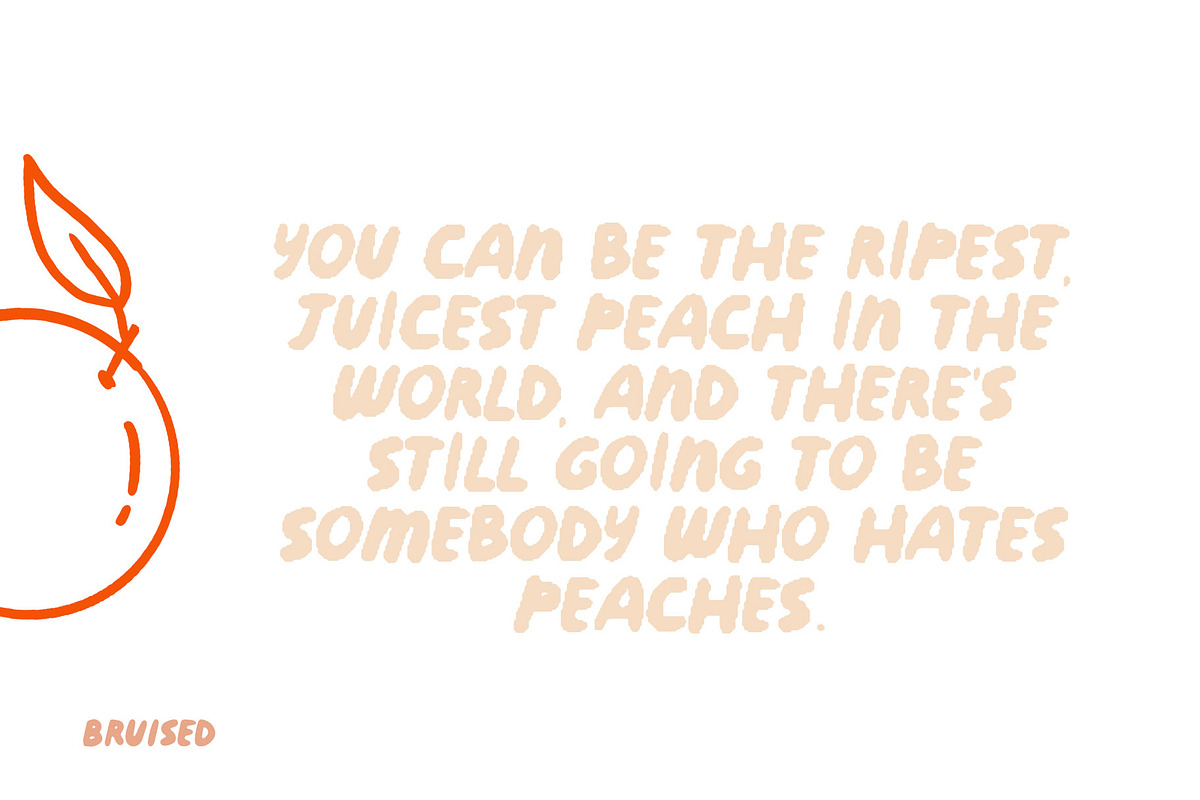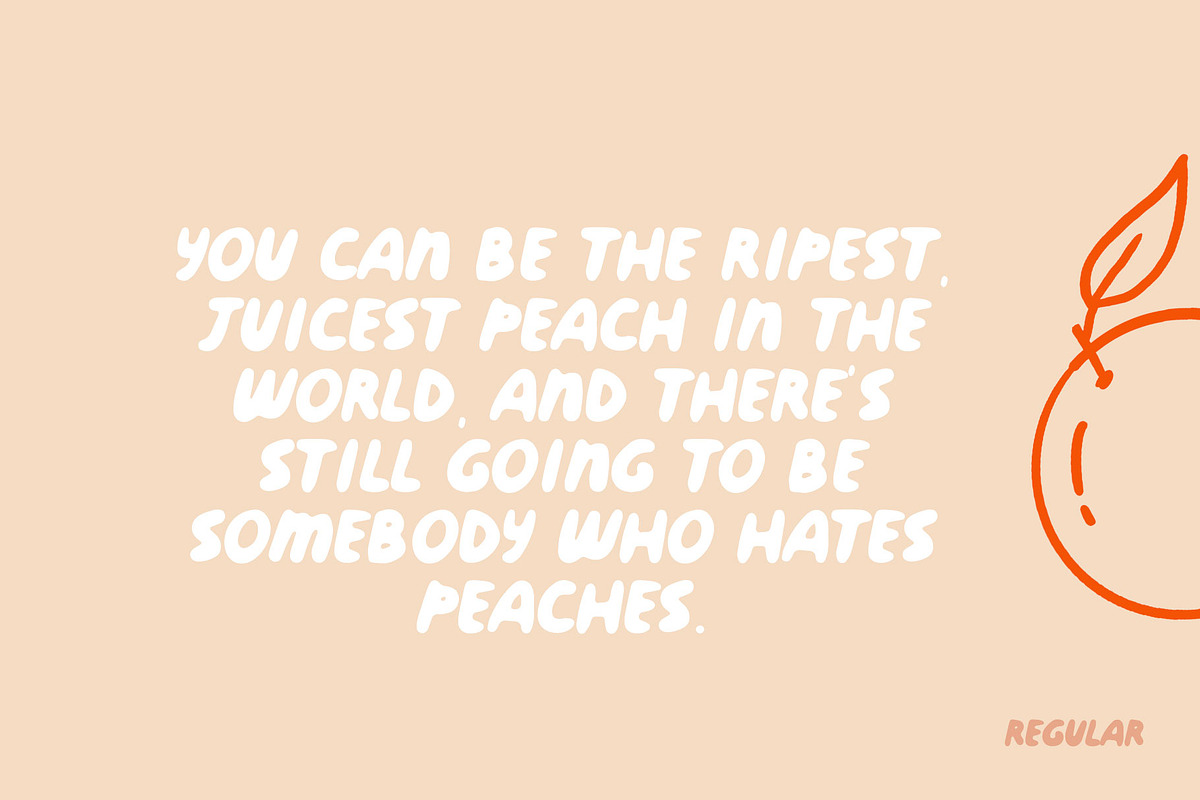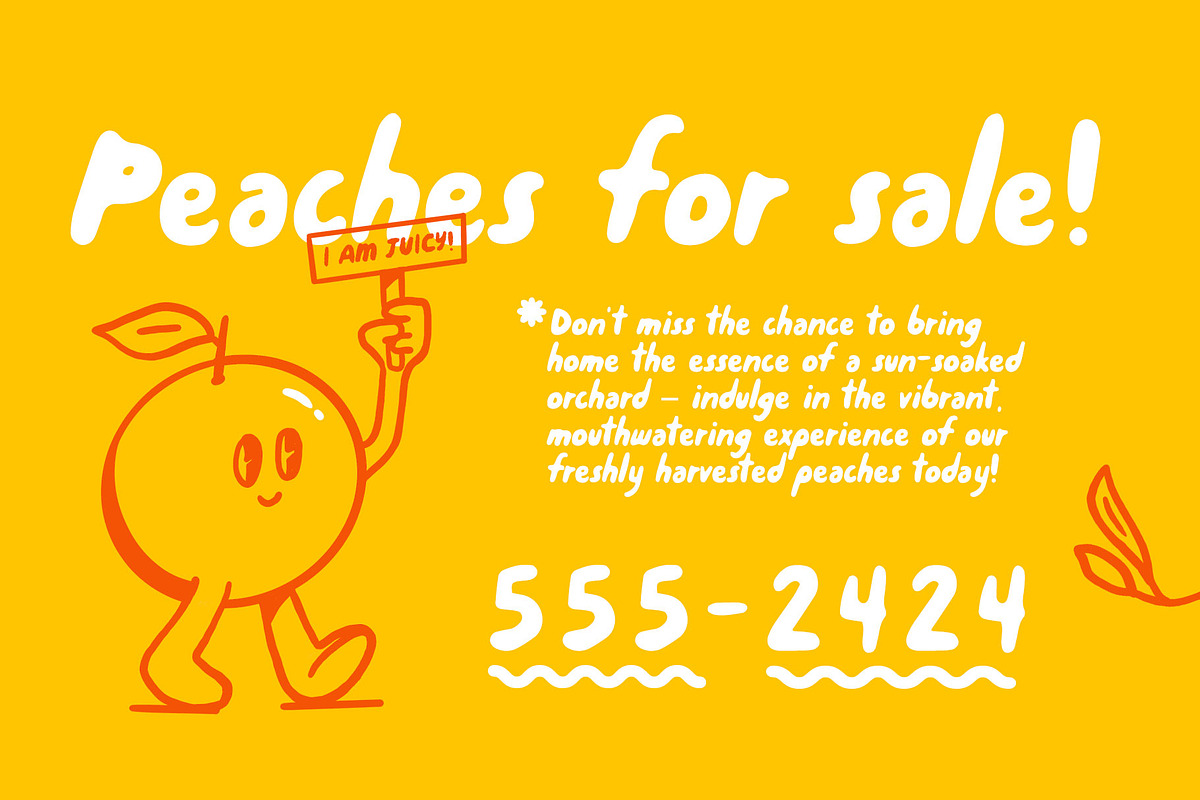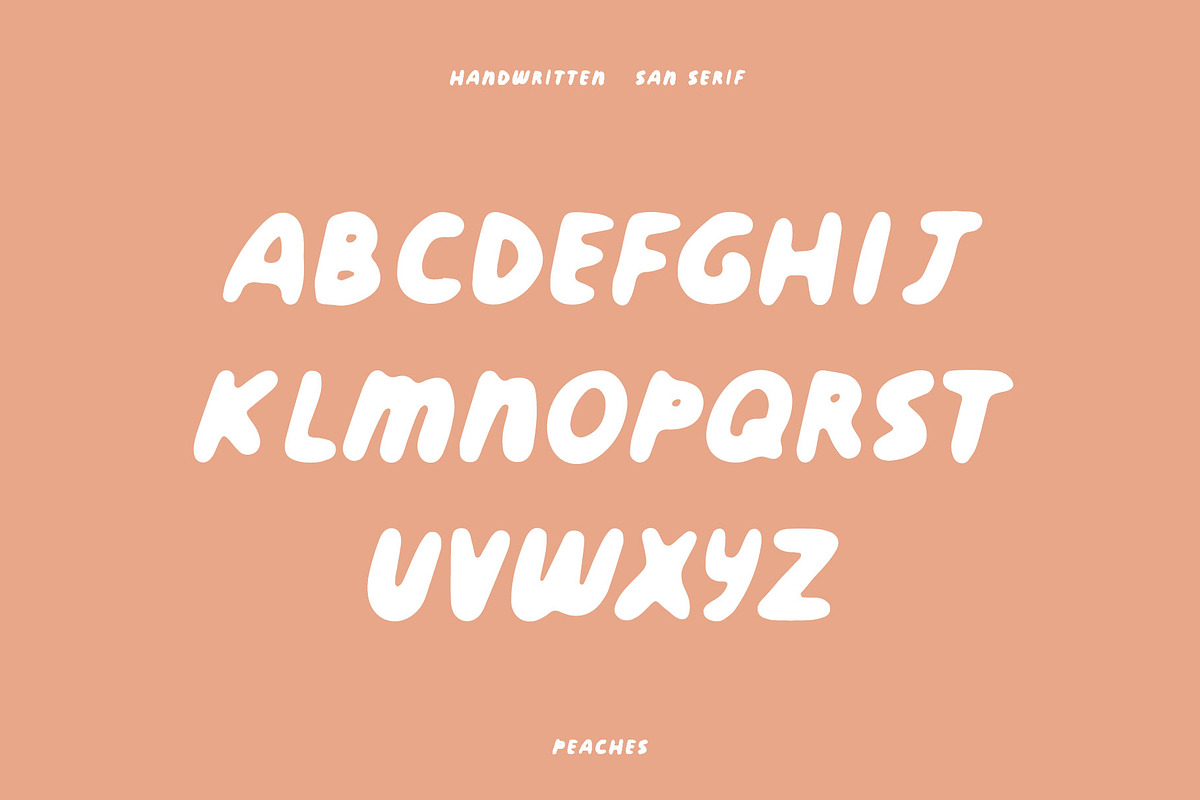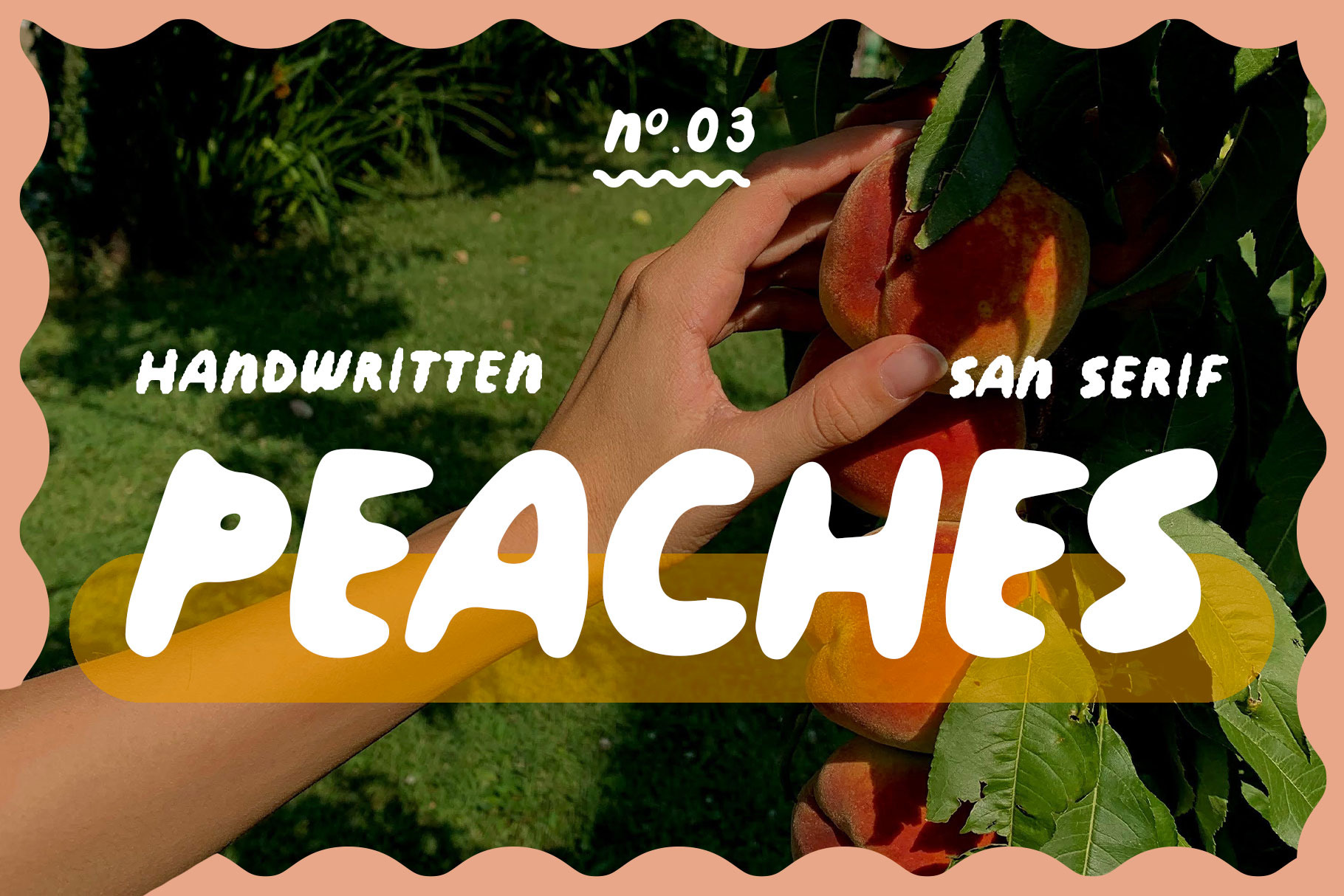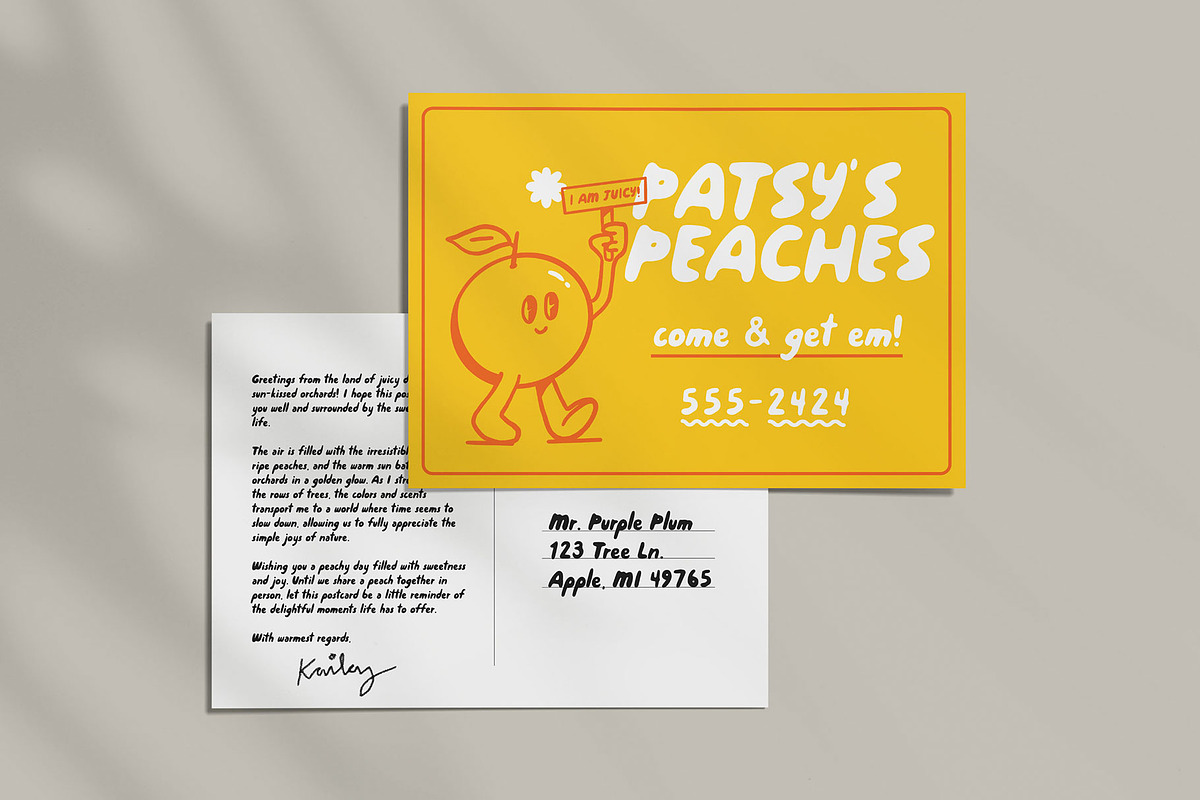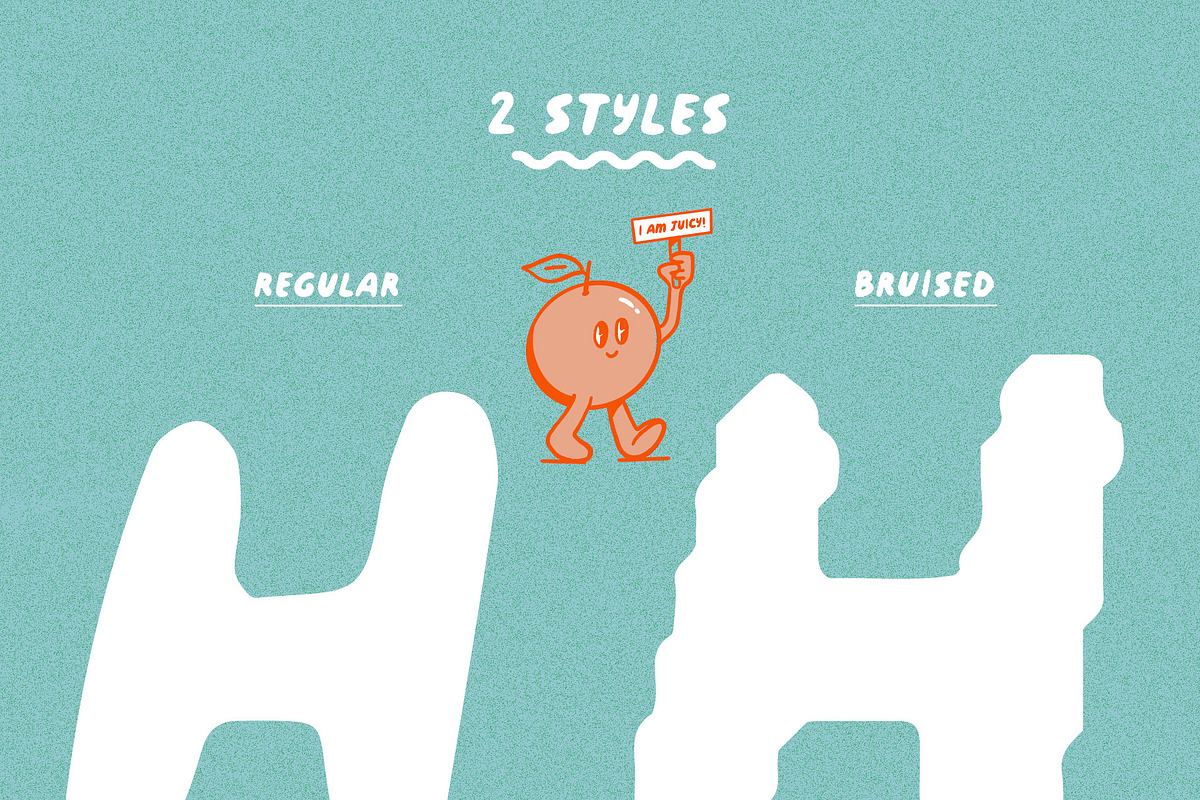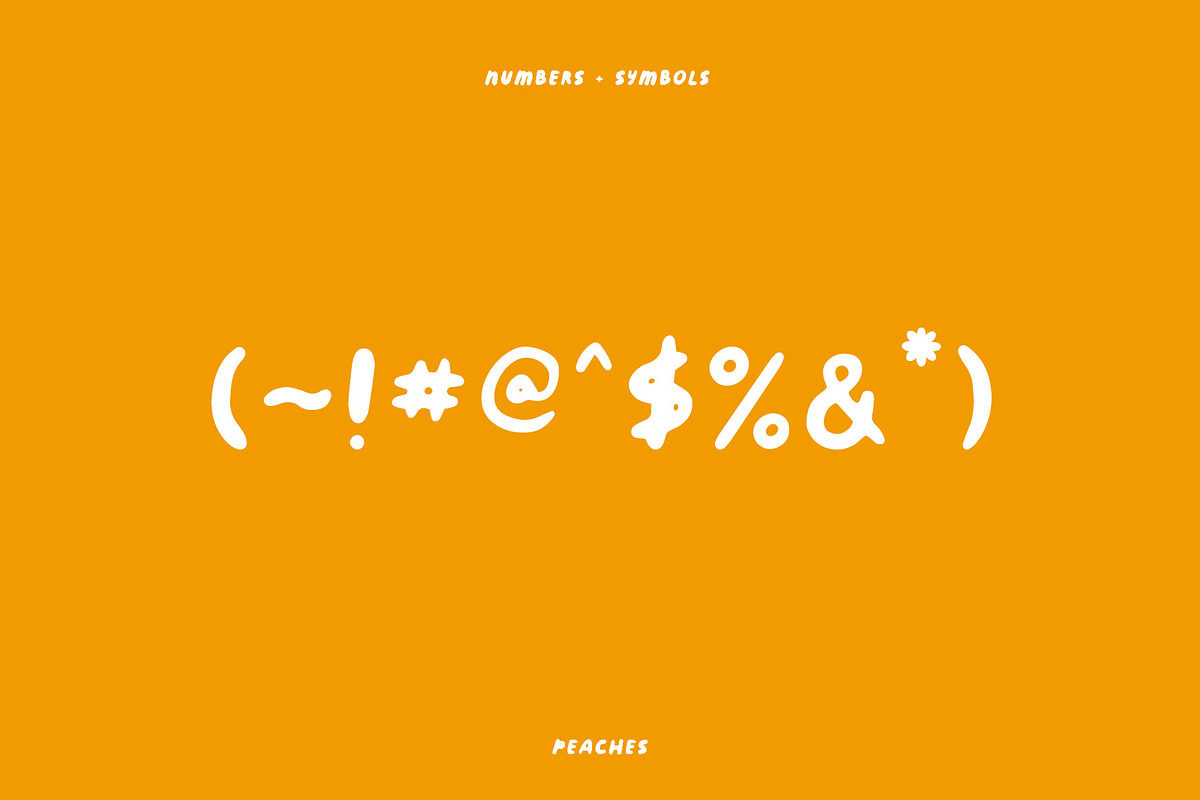
Peaches | Playful Hand-drawn Font
Peaches - a hand-drawn font with plenty of play! It has 2 variations, regular and bruised, with even more character when you're feeling a little rough around the edges. PLAY EVERYDAY! This font makes that easy.
Designed and kerned with care.